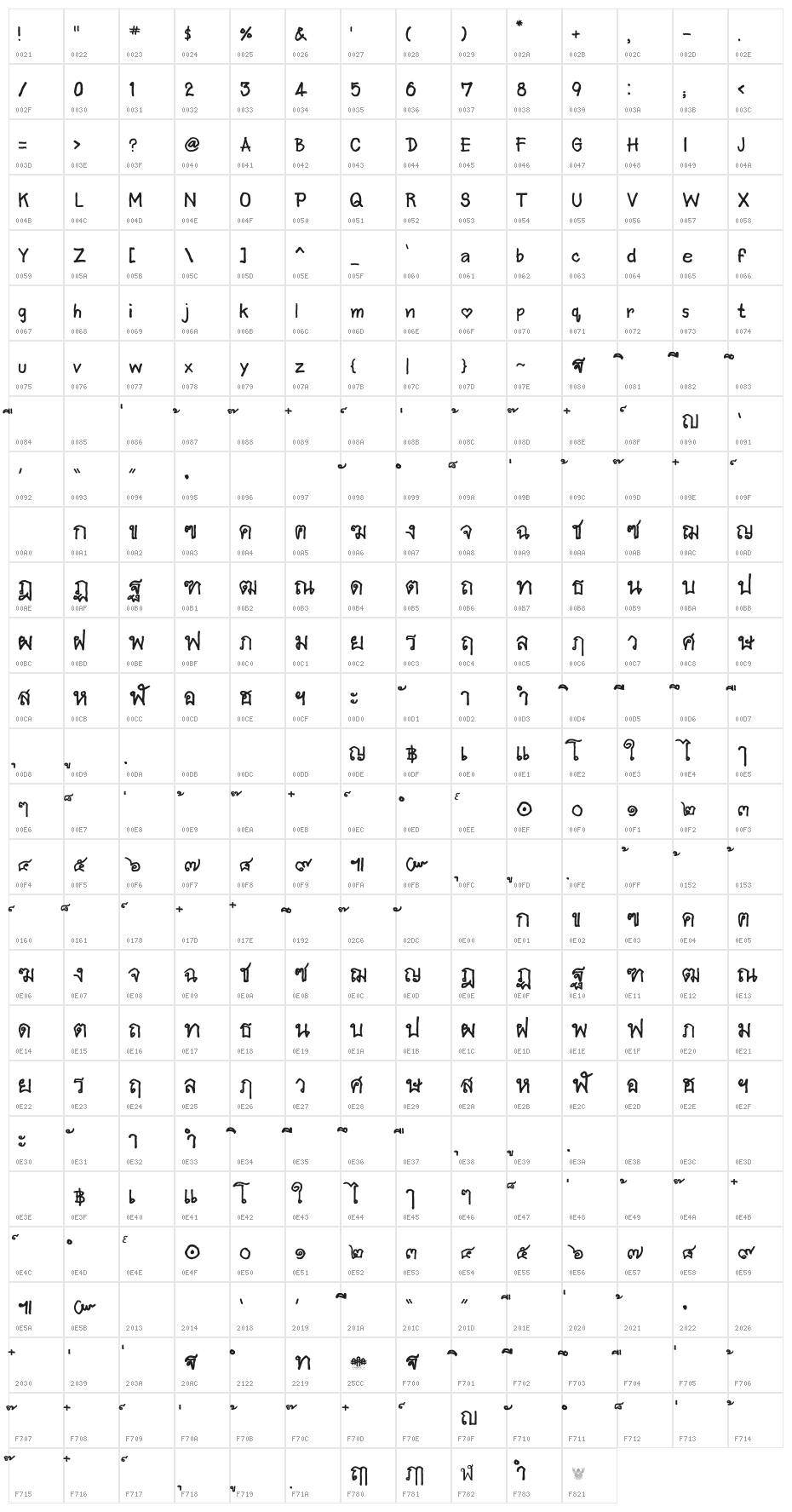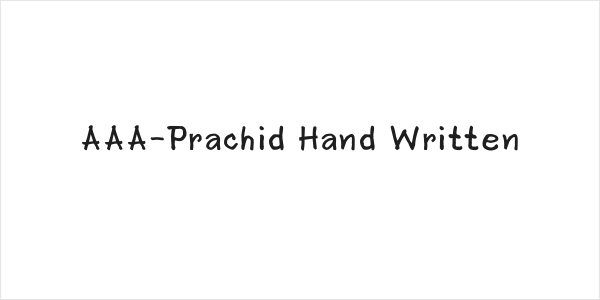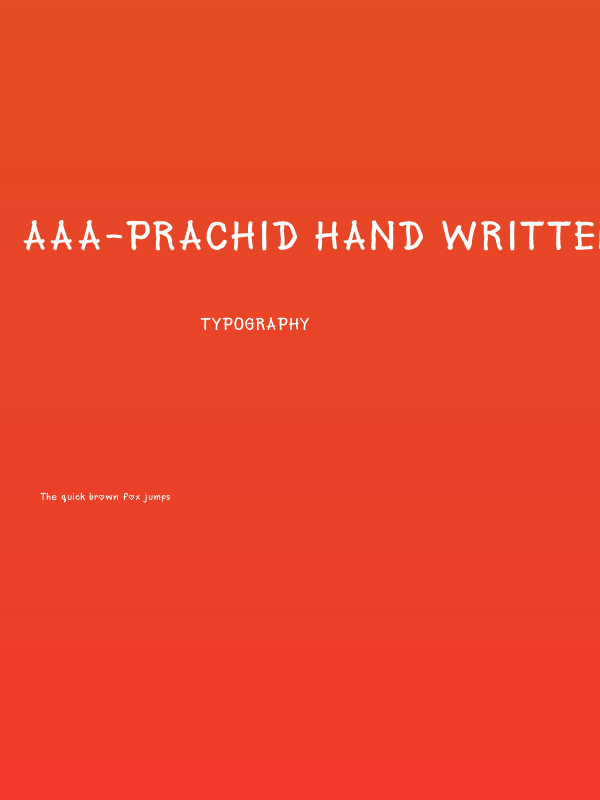
AAA-Prachid Hand Written Font
AAA-Prachid Hand Written Description
This font exudes a playful and casual handwritten style, characterized by its uneven strokes and organic flow. The letters have a slightly irregular baseline, giving them a natural and spontaneous appearance. The uppercase and lowercase letters maintain a consistent style, with rounded edges and a friendly demeanor. Numbers and special characters follow the same informal and approachable design, making the font versatile for various creative projects. Its unique charm lies in its ability to convey a personal touch, reminiscent of hand-drawn text.
Overall StyleCasual, Playful
Use CaseLogos, Headlines, Informal Text
Proposed ProjectsIdeal for greeting cards, children's books, personal blogs, and creative branding projects.